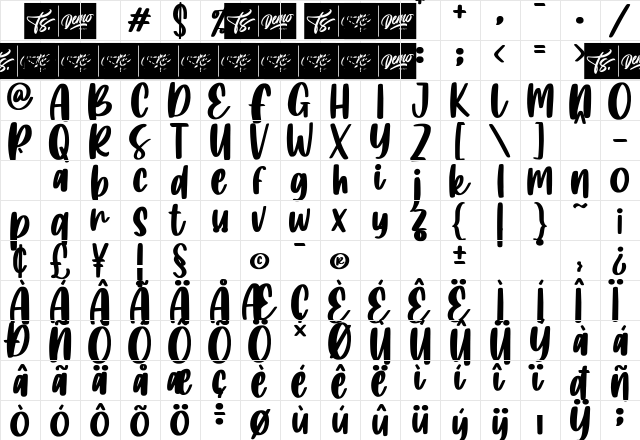
Complete Island Namina Regular glyph index. Displaying only characters natively supported by Island Namina Regular font.
Island Namina is a composed and adaptable typeface that performs quietly and consistently across a wide range of design contexts.